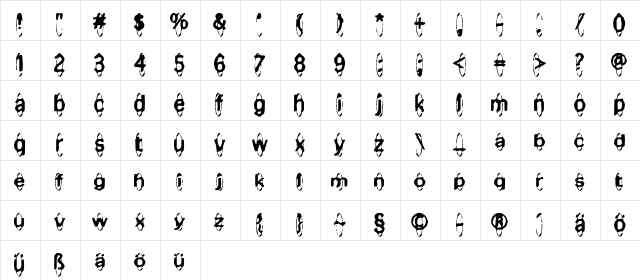
Mischstab Apfelsaft Regular
Design Context for Mischstab Apfelsaft Typeface
Mischstab Apfelsaft is a composed and adaptable typeface that performs quietly and consistently across a wide range of design contexts.